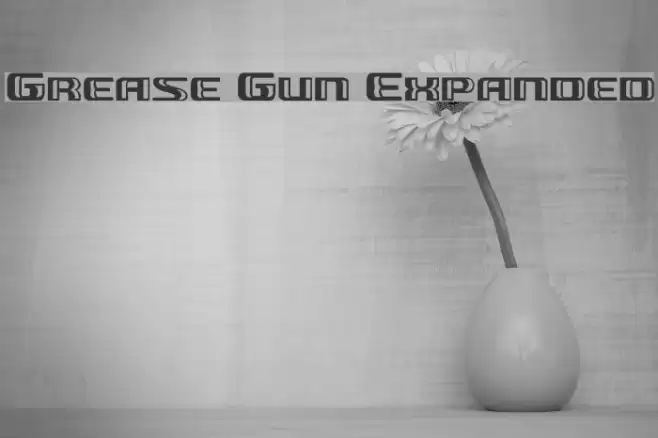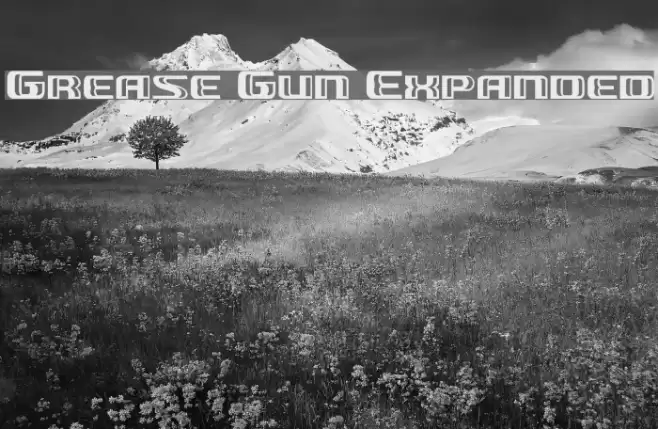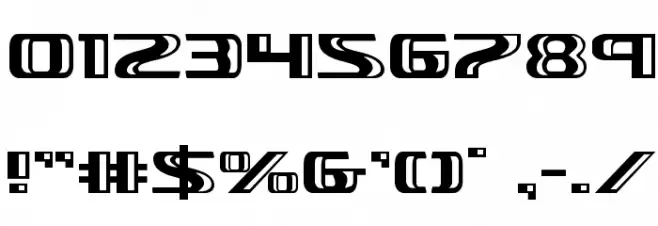
Grease Gun Expanded Font
Grease Gun Expanded Description
This font features a bold, industrial design with a distinctly mechanical aesthetic. The characters are constructed with thick, uniform strokes that create a sense of strength and durability. The geometric shapes and angular lines give it a futuristic and technical feel, reminiscent of machinery and engineering. The uppercase and lowercase letters maintain a consistent style, with a slight expansion in width that enhances readability. The numerals and special characters follow the same robust design, ensuring a cohesive look across all text elements. This font is ideal for projects that require a strong, impactful visual presence.
A bold, industrial font with a mechanical and futuristic aesthetic from Fancy fonts.
- Proposed Projects: Ideal for branding, posters, signage, and any project requiring a strong, impactful visual presence.